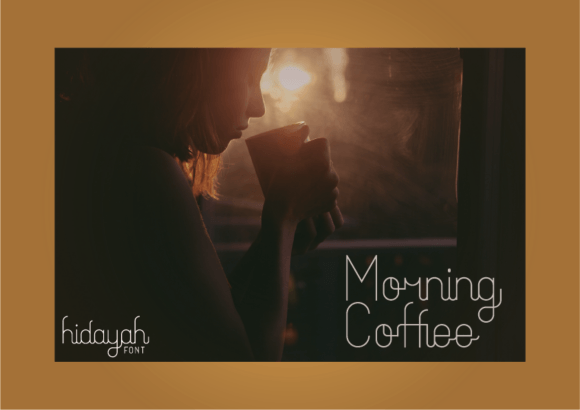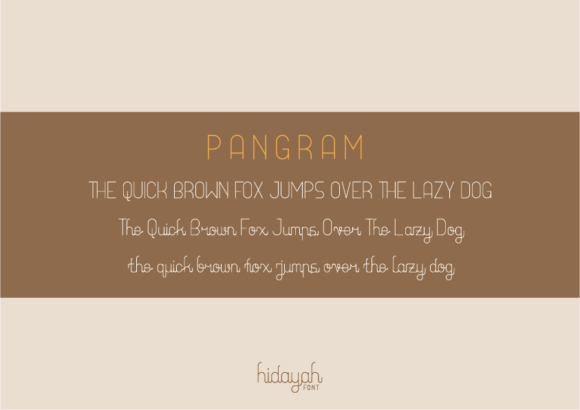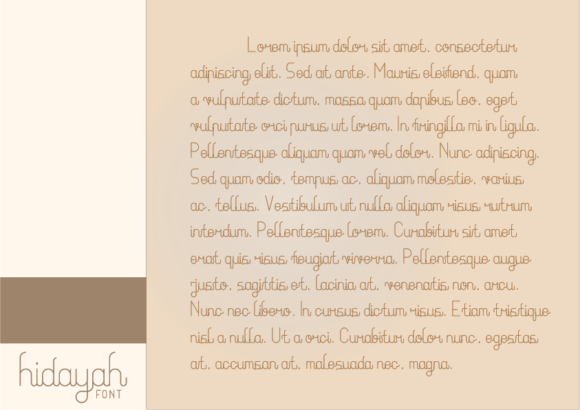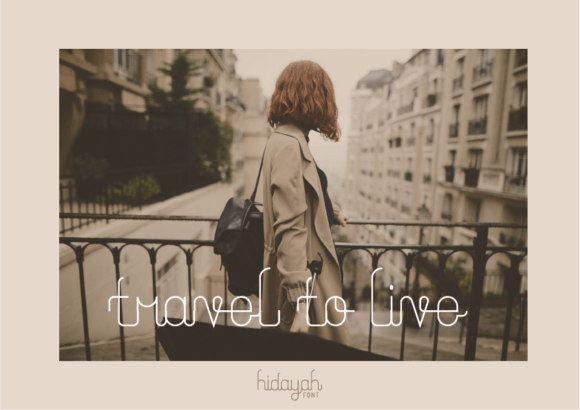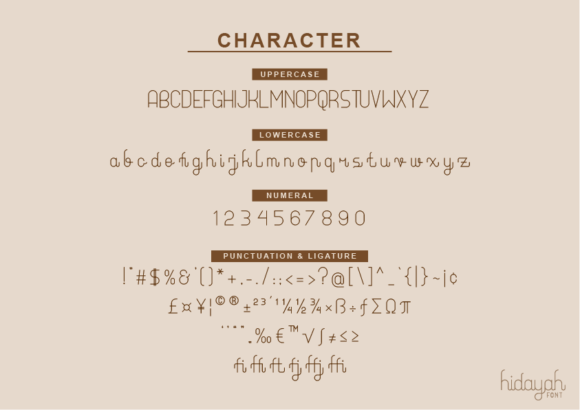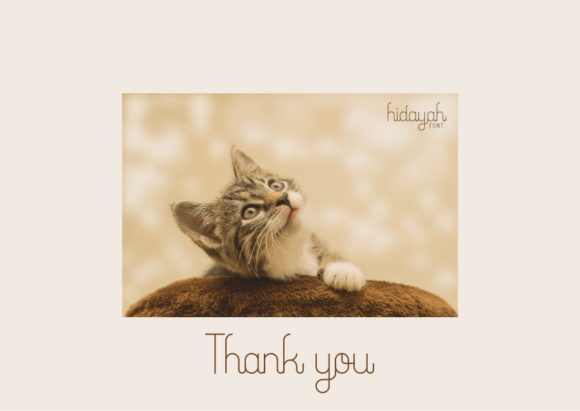
The Ultimate Guide to Hidayah Font: Elevate Your Designs with Elegance
I’ll never forget the time I was working on a logo design project for a high-end boutique client. I had spent hours brainstorming ideas, sketching out concepts, and refining my designs. But as I began to digitize my work, I realized that I was struggling to find the perfect font. The client wanted something elegant, sophisticated, and eye-catching – but also easy to read and versatile. It wasn’t until I stumbled upon the Hidayah Font that I knew I had found the one.
An Honest Review of Hidayah Font
So, what makes Hidayah Font so special? Let’s dive into the good stuff ✨
• Elegant and Classy: Hidayah Font boasts a sleek, monoline script style that’s perfect for creating sophisticated designs.
• Easy to Read: Despite its elegant appearance, Hidayah Font is remarkably legible – making it ideal for use in a variety of design projects.
• Attractive and Versatile: Whether you’re designing a logo, business card, or album cover, Hidayah Font adapts effortlessly to any design style.
Of course, no font is perfect – and Hidayah Font has a few minor quirks to consider 🤔
• ⚠️ Limited Character Set: While Hidayah Font includes a range of standard characters, it may not support certain special characters or glyphs.
• ⚠️ Requires Careful Kerning: As with any script font, kerning can be a bit tricky with Hidayah Font – requiring some manual adjustment to achieve optimal results.
The Story Behind Hidayah Font
While the true origins of Hidayah Font are shrouded in mystery, it’s said that the font was created by a talented type designer who sought to craft a script font that was both elegant and accessible. Inspired by the flowing lines of handwritten calligraphy, Hidayah Font was born – and has since become a favorite among designers and crafters worldwide.
Font Name Hidayah Font
Author dimasadinugroho088
What is Hidayah Font best suited for? Hidayah Font is an excellent choice for logo designs, tags on photography, signatures, quotes, album covers, business cards, and many other design projects that require an elegant, sophisticated touch.
Is Hidayah Font easy to read? Yes, despite its elegant appearance, Hidayah Font is remarkably legible – making it suitable for use in a variety of design applications.
Does Hidayah Font support OpenType features? Yes, Hidayah Font includes OpenType features such as ligatures and stylistic alternates – allowing for added visual interest and flexibility in your designs.